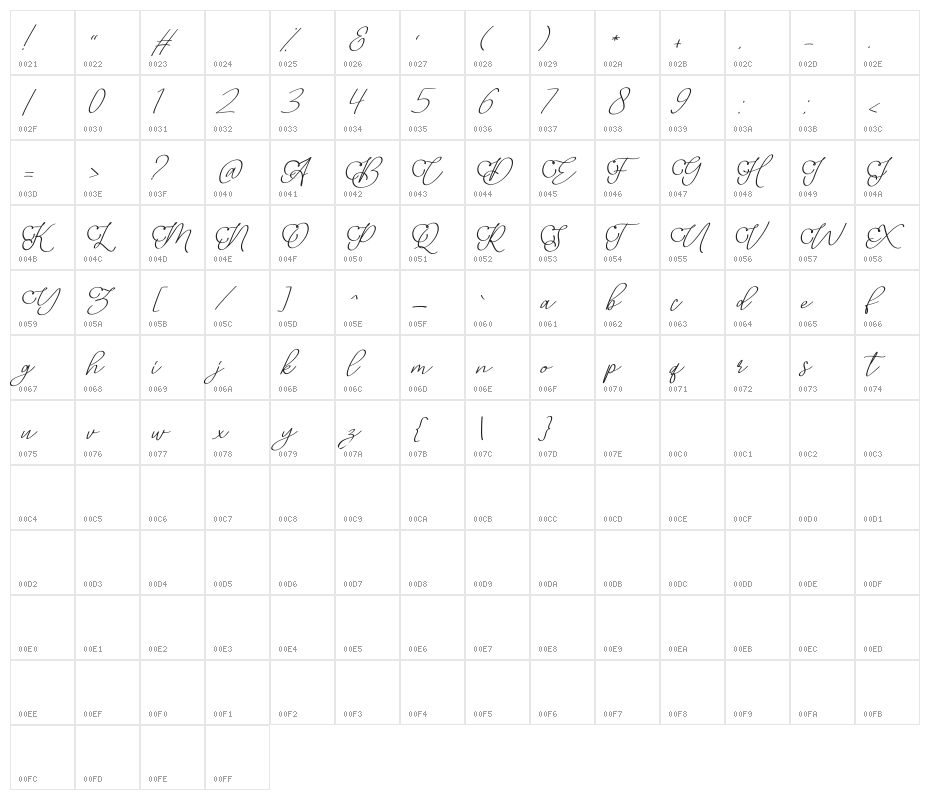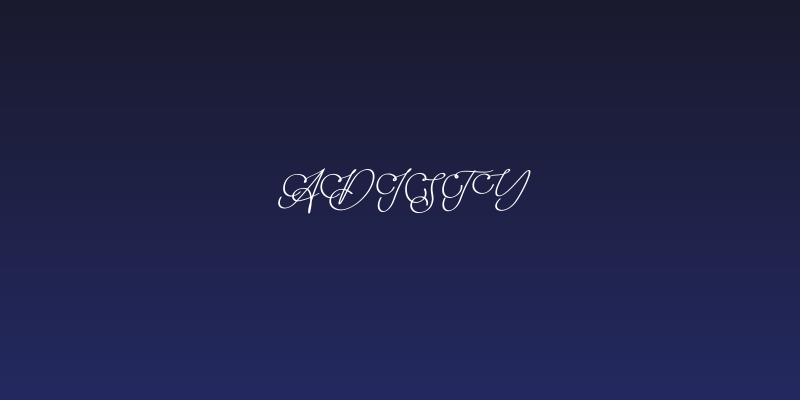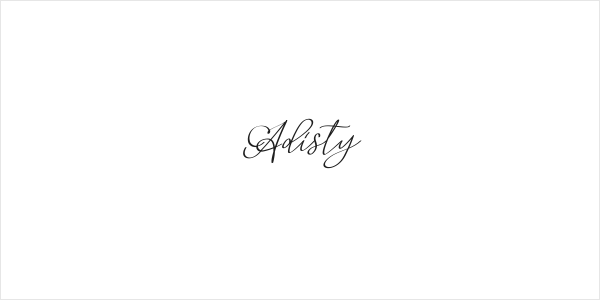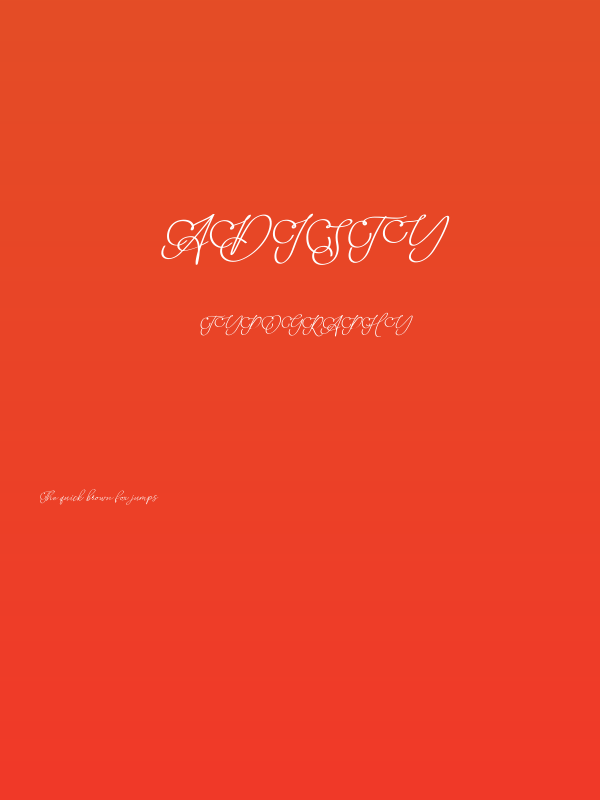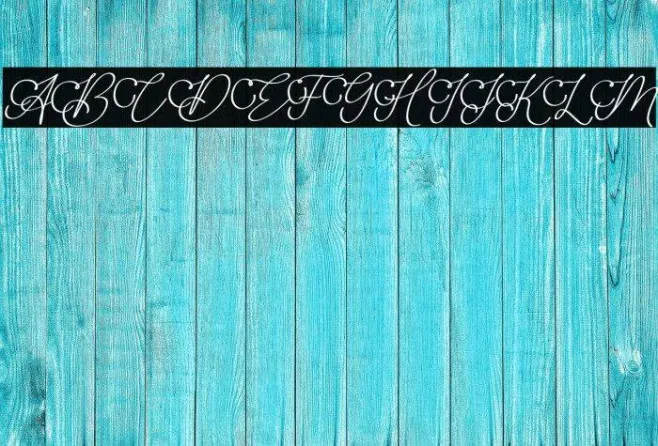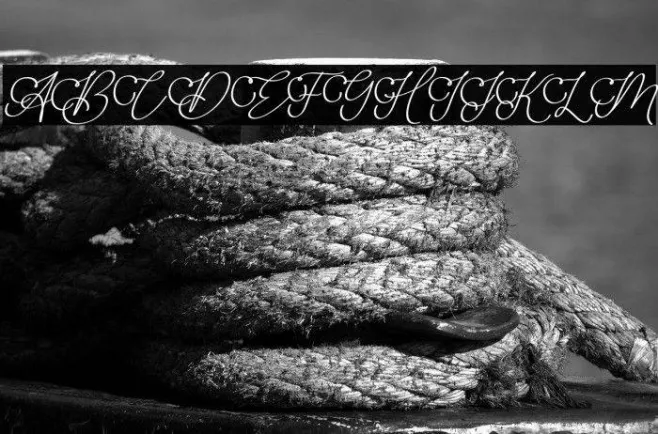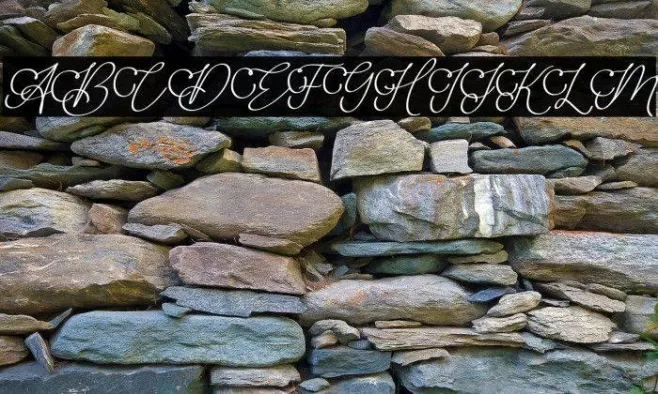
Adisty Font
Adisty Description
This elegant script font features flowing, cursive letterforms with a graceful and sophisticated appearance. The characters are interconnected, creating a seamless and fluid look. The uppercase letters are ornate and slightly larger than the lowercase, which are more understated yet still maintain a stylish flair. The numerals are consistent with the script style, offering a cohesive appearance across all characters. Special characters are designed to complement the overall aesthetic, enhancing the font's versatility. The font's delicate strokes and smooth curves make it ideal for projects that require a touch of elegance and refinement.